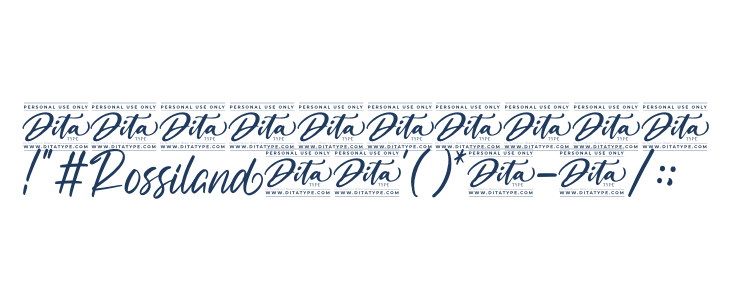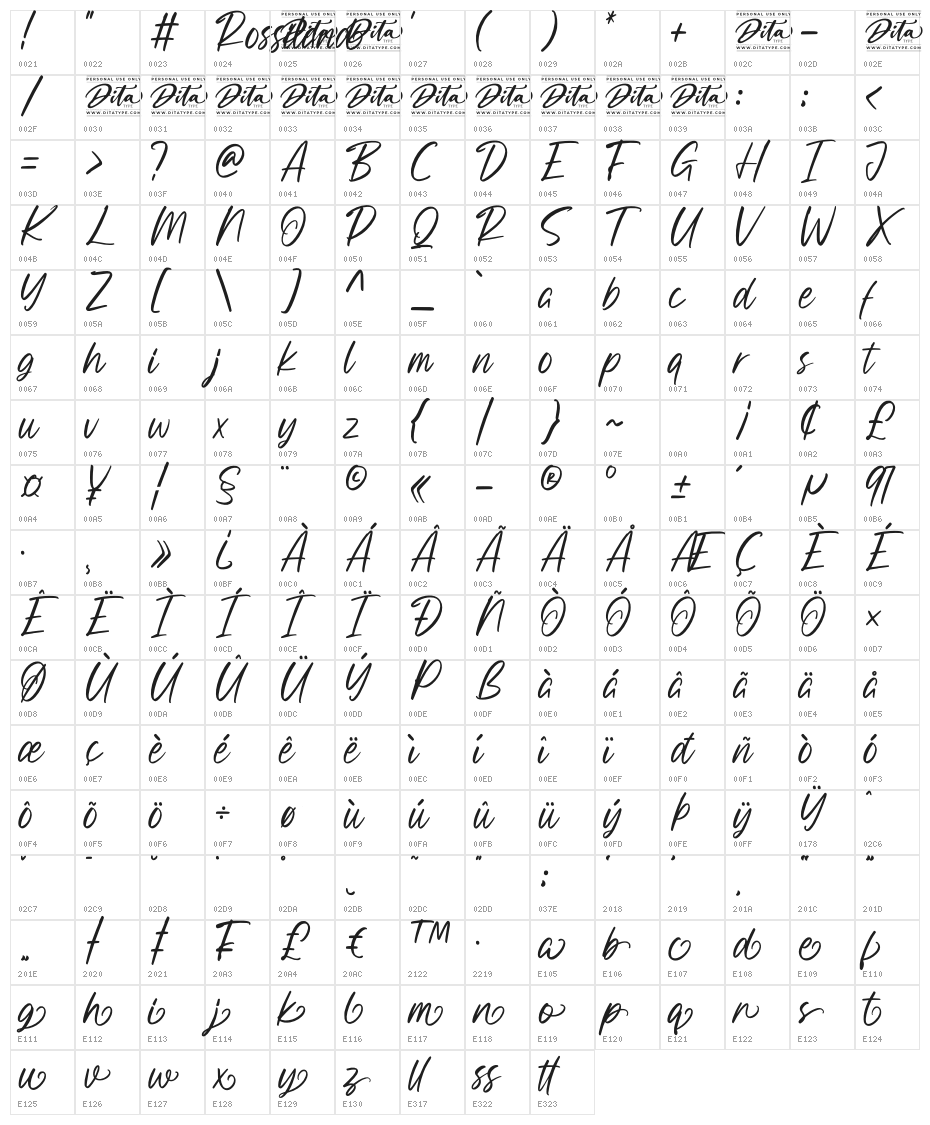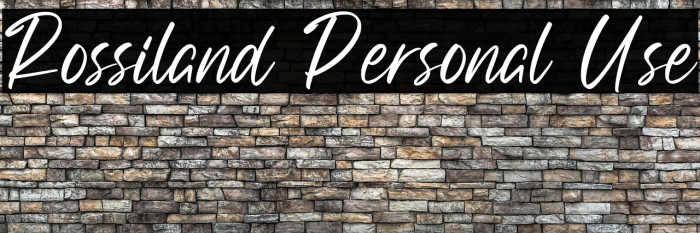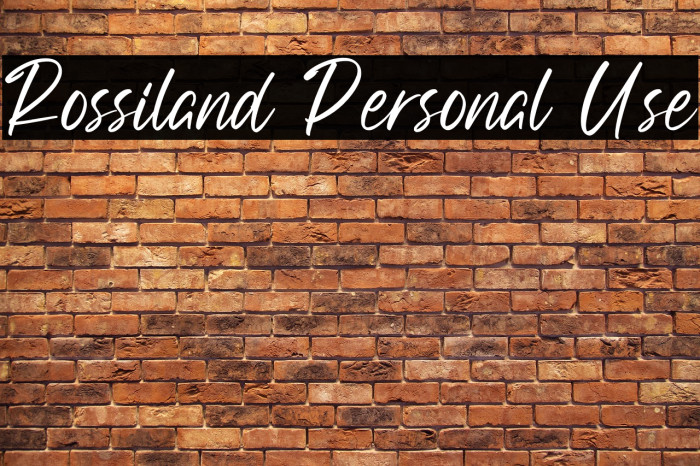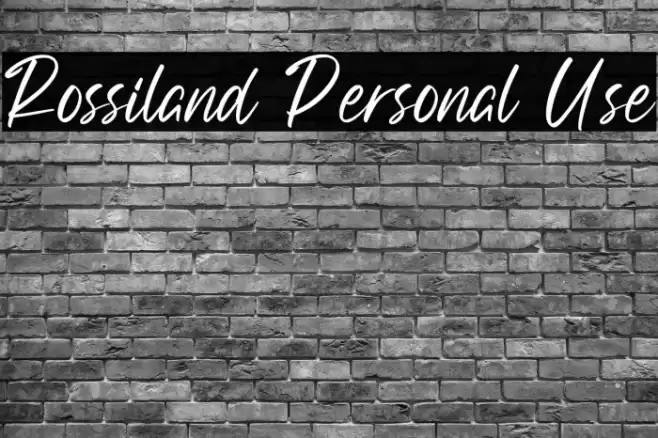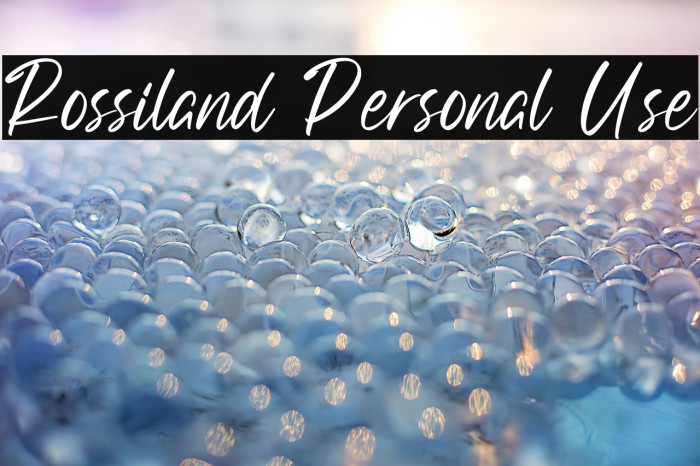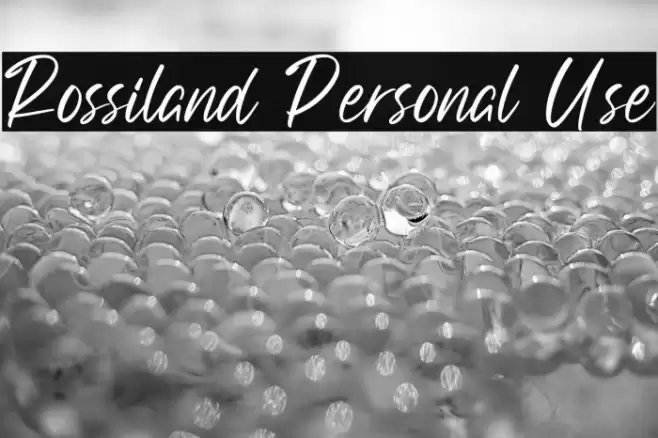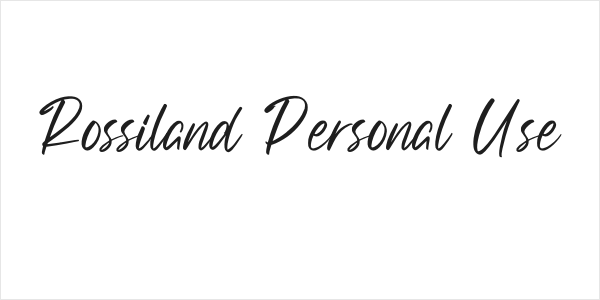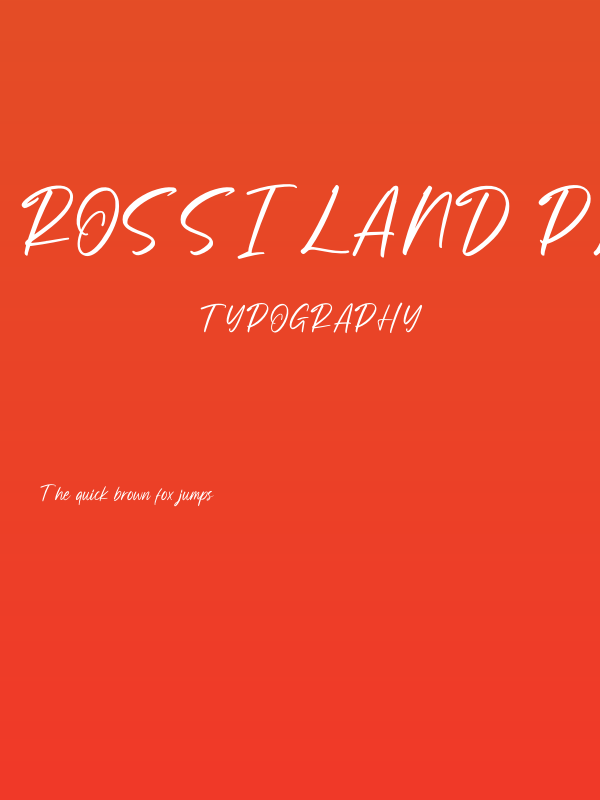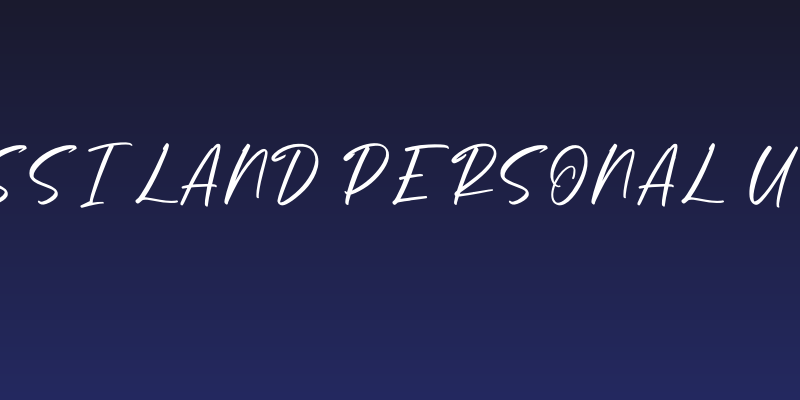
Rossiland Personal Use Font
Rossiland Personal Use Description
This font features a dynamic and flowing script style, characterized by its smooth, cursive strokes and elegant curves. The uppercase letters are slightly slanted, adding a sense of motion and fluidity, while the lowercase letters maintain a consistent rhythm with their connected forms. The font exudes a handwritten charm, making it suitable for projects that require a personal touch. The characters are well-spaced, ensuring readability, and the overall design is both stylish and versatile.